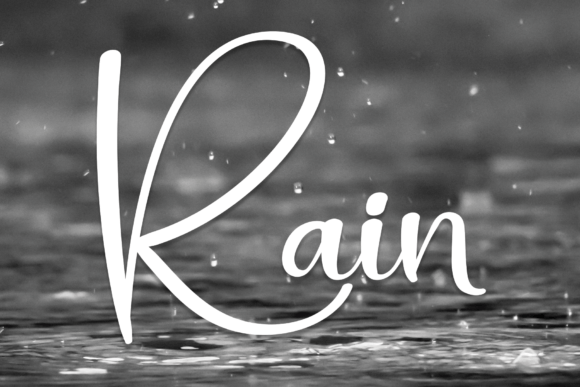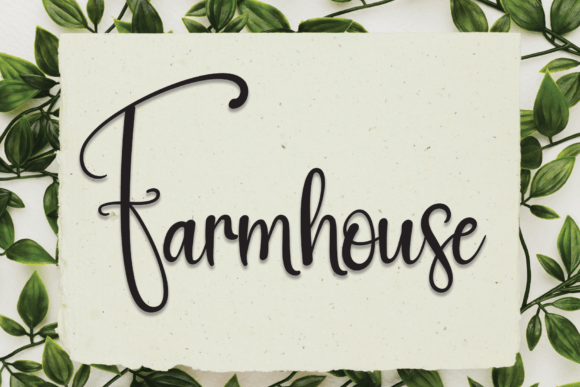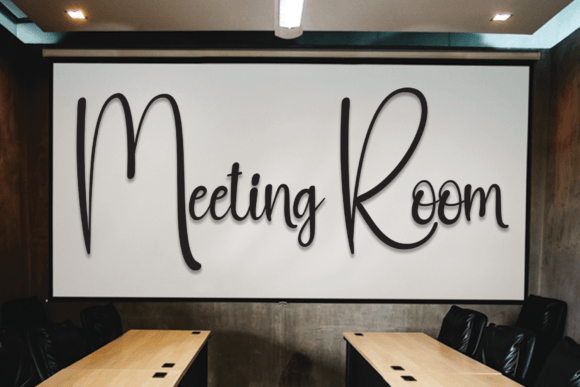
Rain Font
Rain is a simple and friendly handwritten font. Whether you’re using it for crafts, digital design, presentations, or creating greeting cards, this font has the potential to become your go-to font, whatever the occasion.